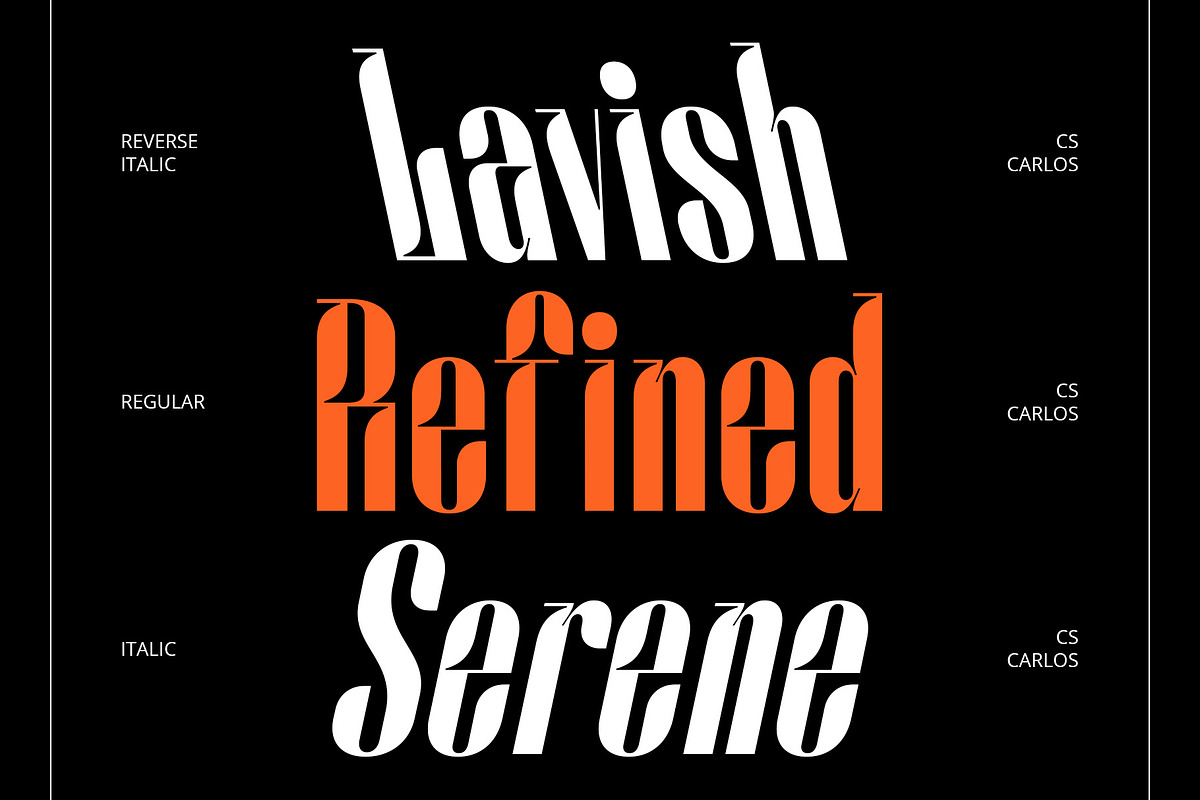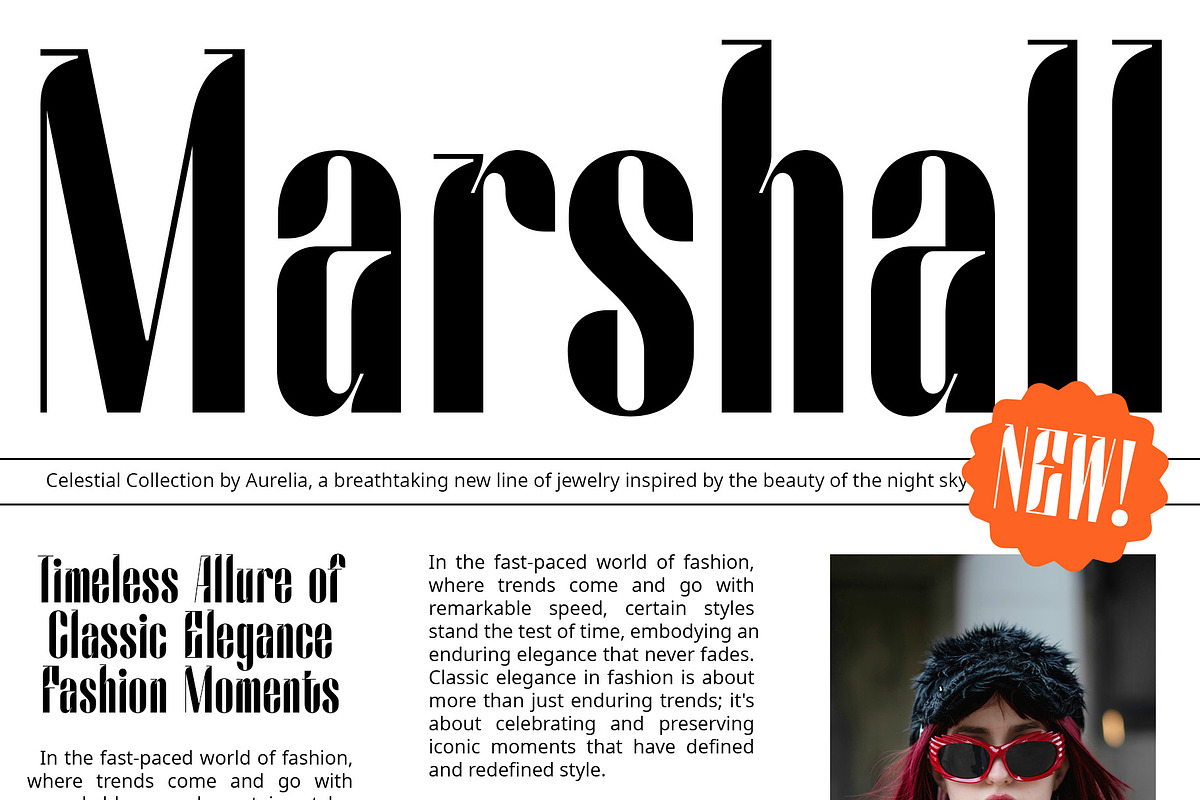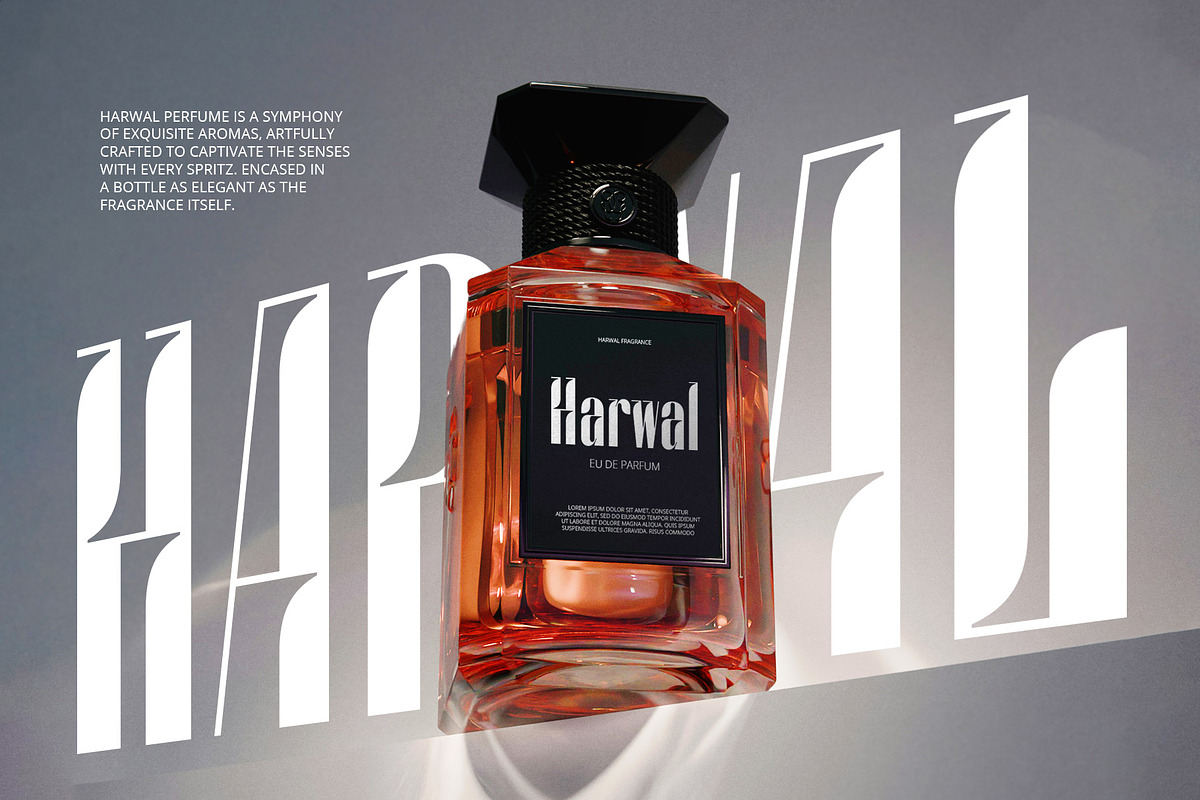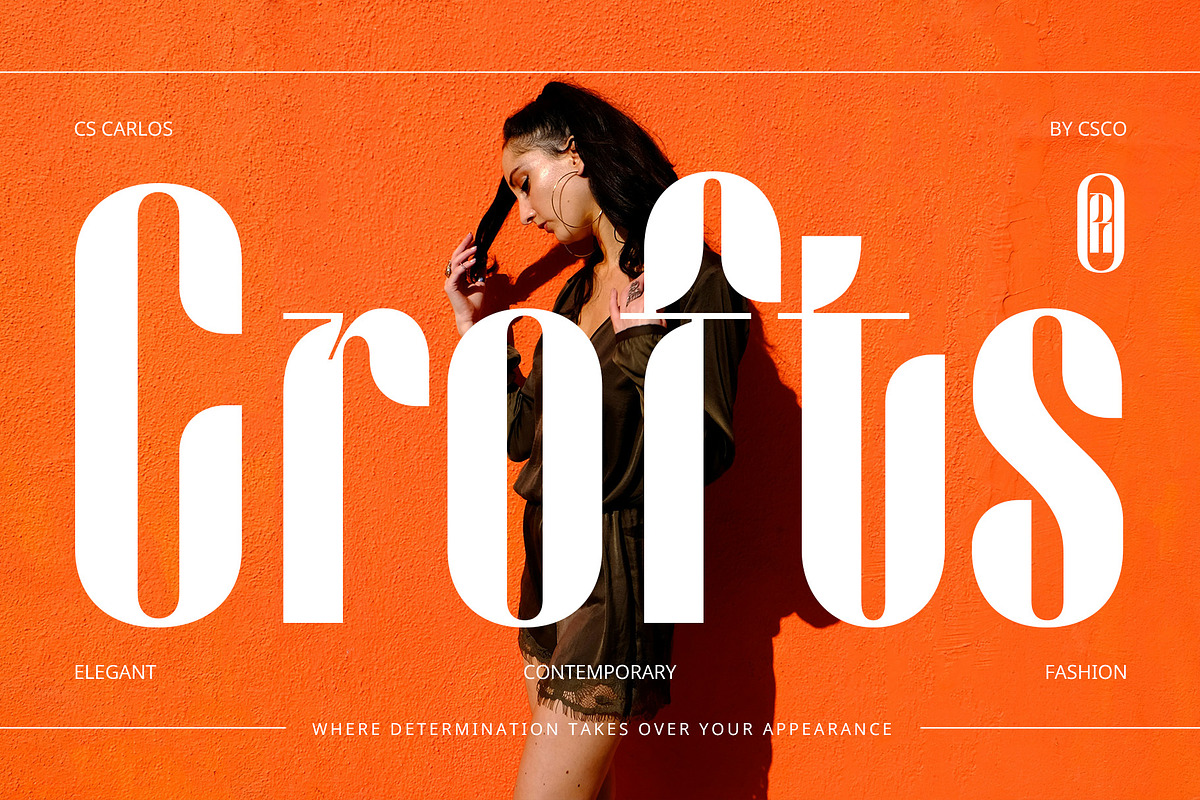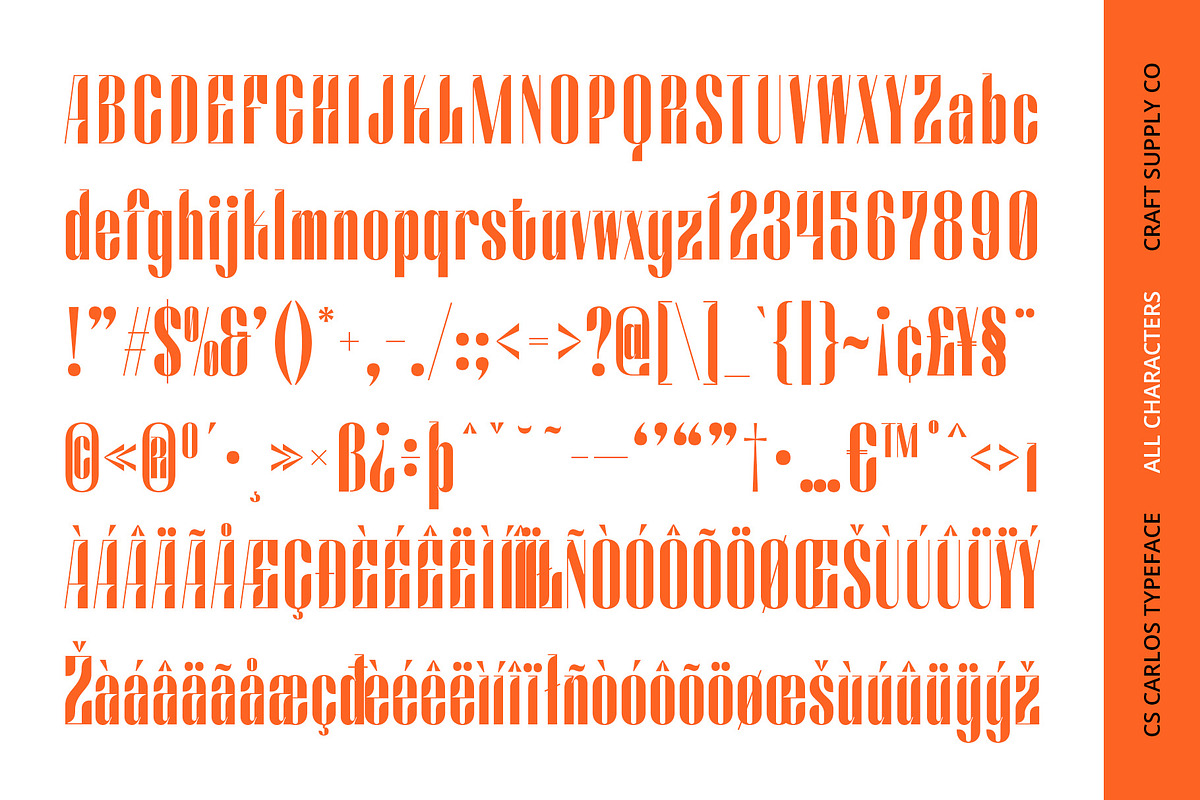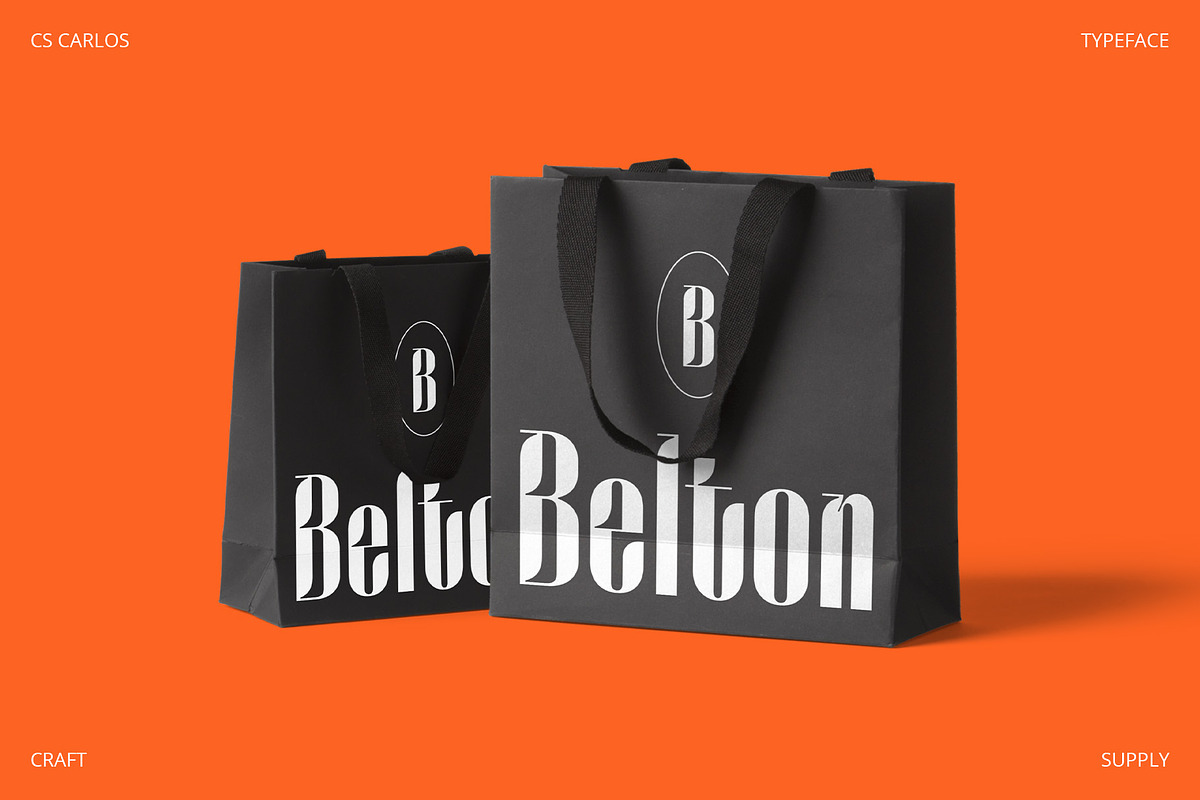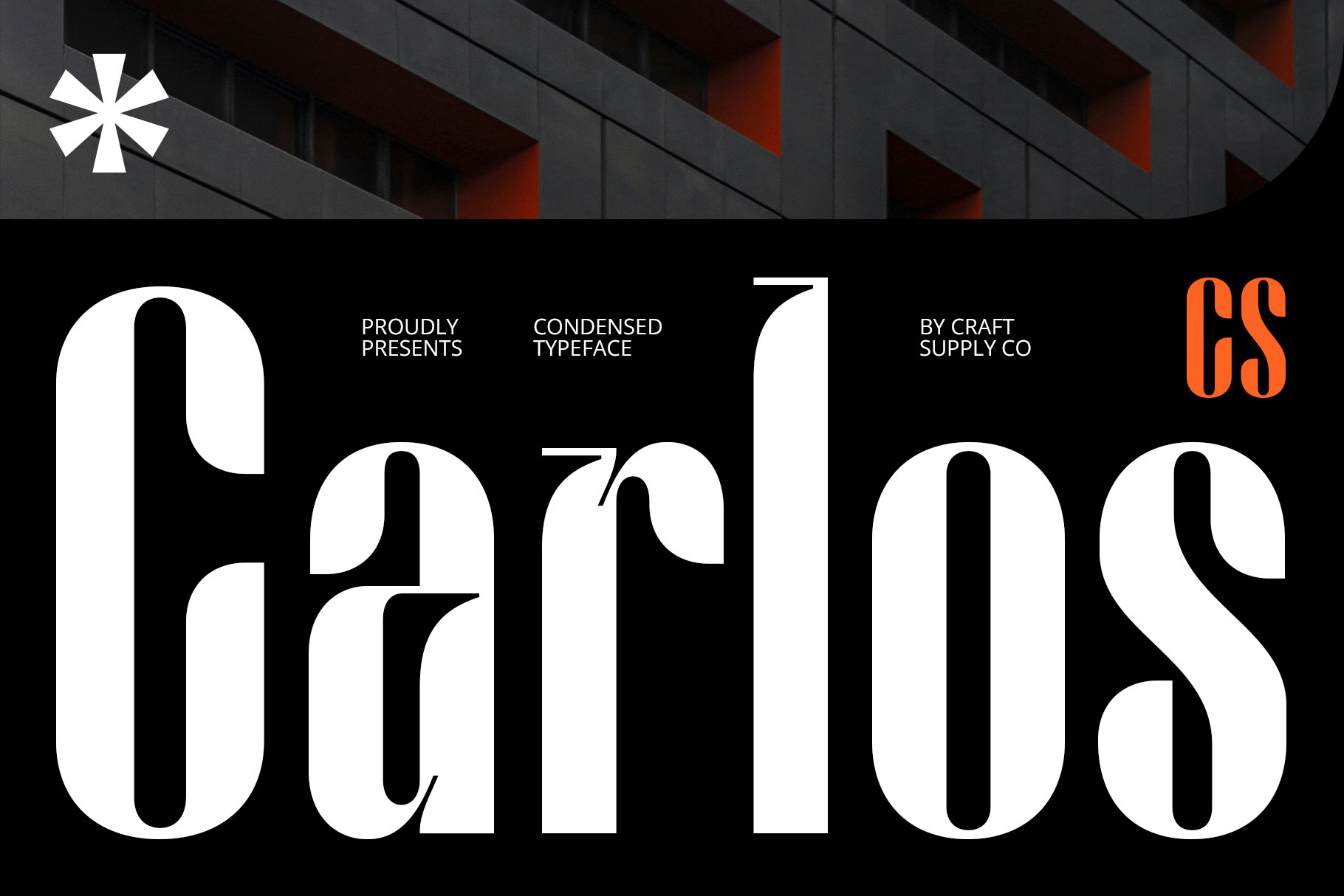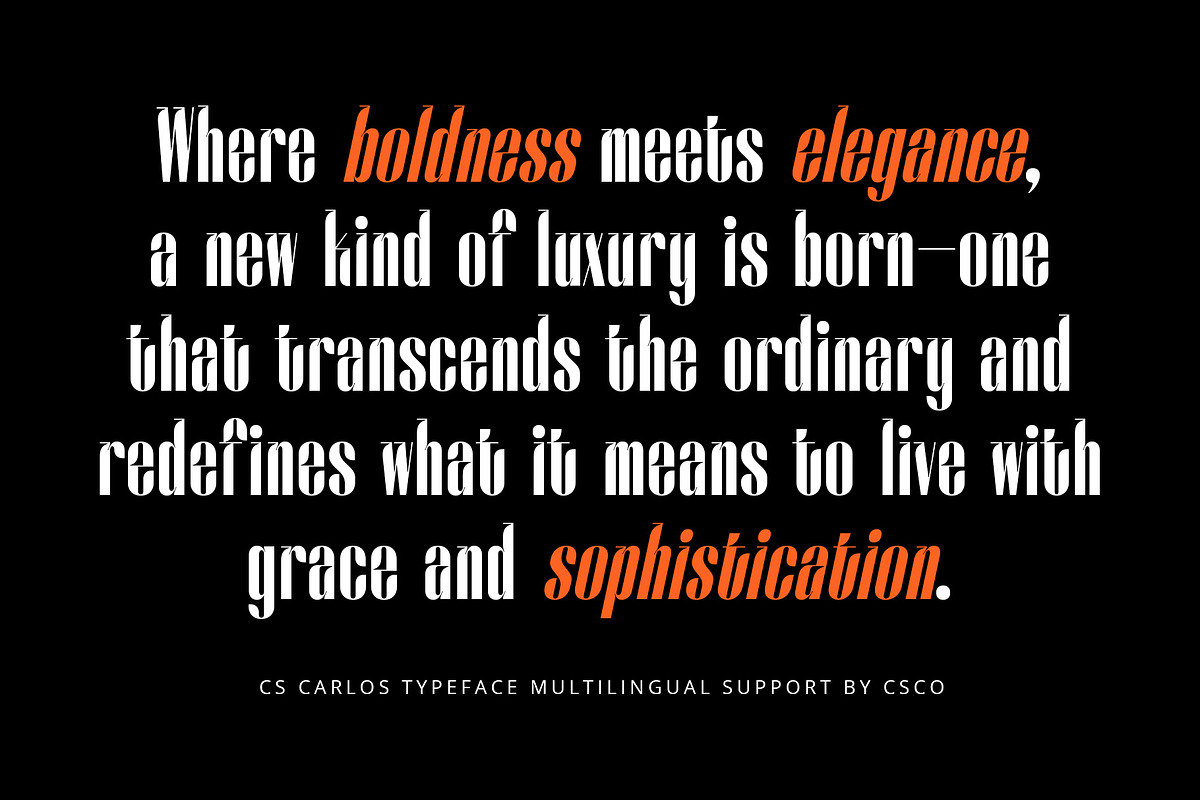
CS Carlos – Condensed Font
CS Carlos – Condensed Font: Bold Efficiency in a Compact Design
Modern Sans-Serif with a Condensed Shape CS Carlos is a modern sans-serif font characterized by its bold, condensed shape. The narrower and more compact characters create a powerful visual presence, making it ideal for designs that need to make a strong impression in limited horizontal space.
Maximized Space Efficiency The condensed design of CS Carlos maximizes horizontal space, allowing for efficient use of space without sacrificing readability. This bold, compact appearance delivers a striking and effective message, making it perfect for applications that require both clarity and visual impact.
Versatile for Strong and Efficient Designs Whether used in advertising, branding, or editorial design, CS Carlos provides a modern and efficient solution. Its compact design ensures clear readability while making a bold statement, making it an excellent choice for projects that require impactful text in limited space.
- CS Carlos Regular
- CS Carlos Italic
- CS Carlos Reverse Italic